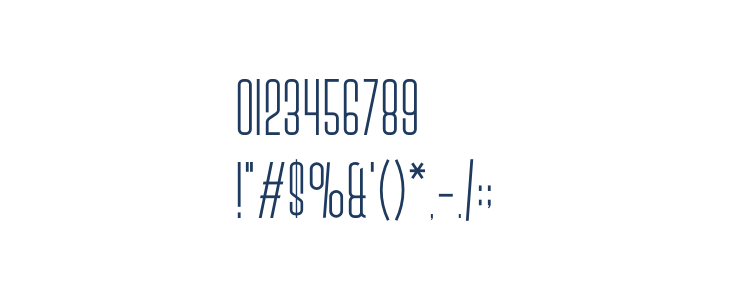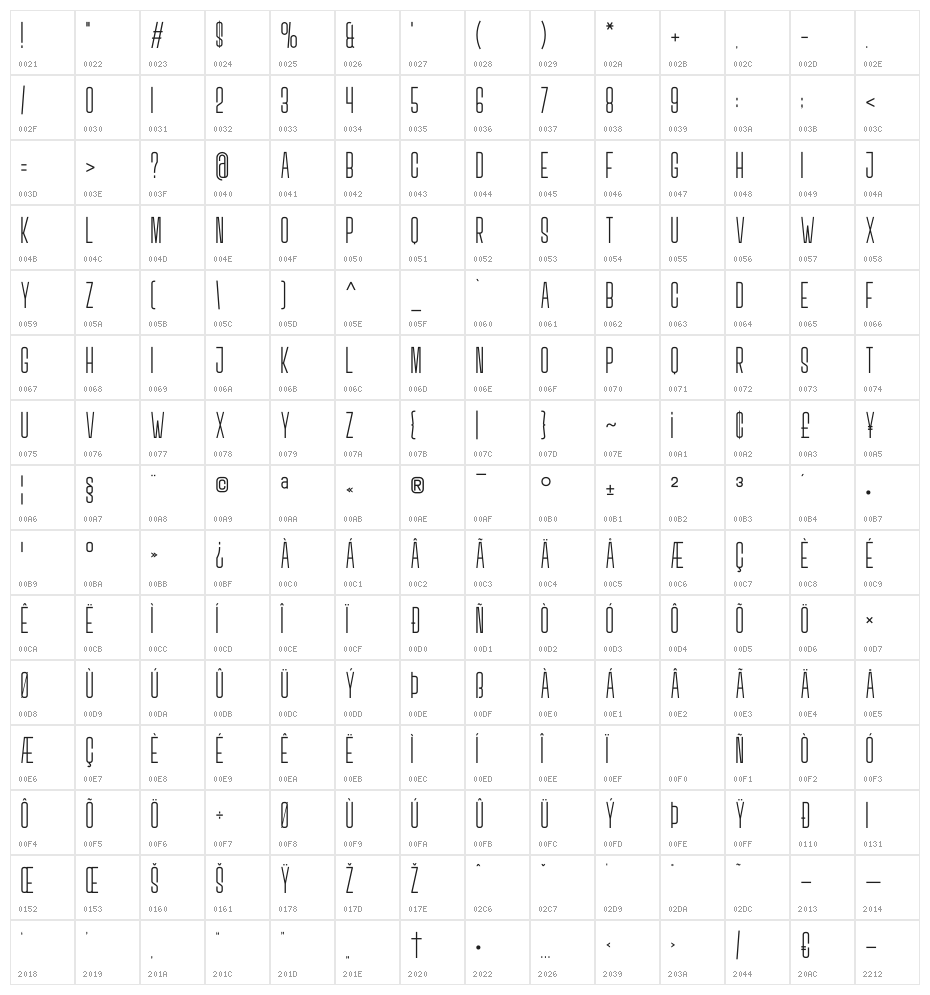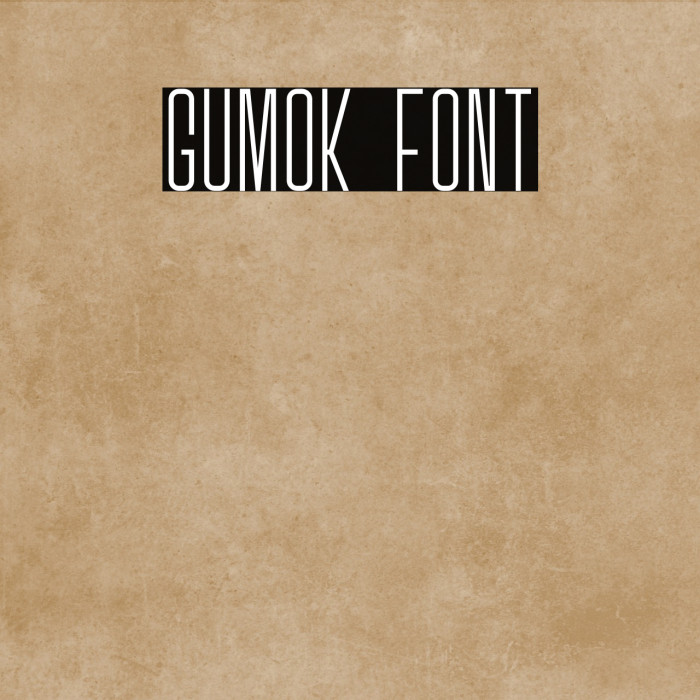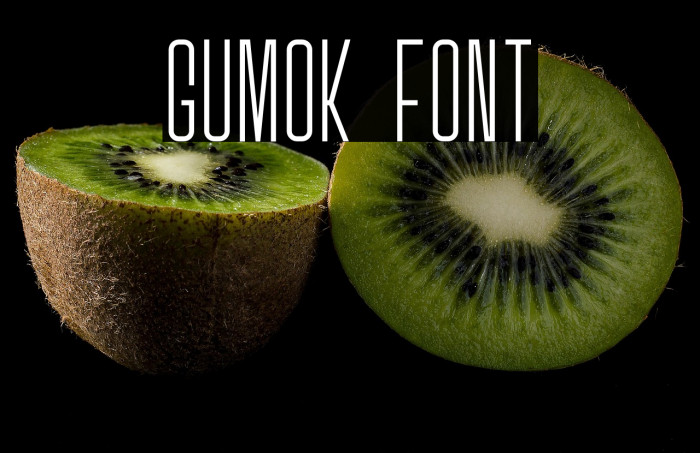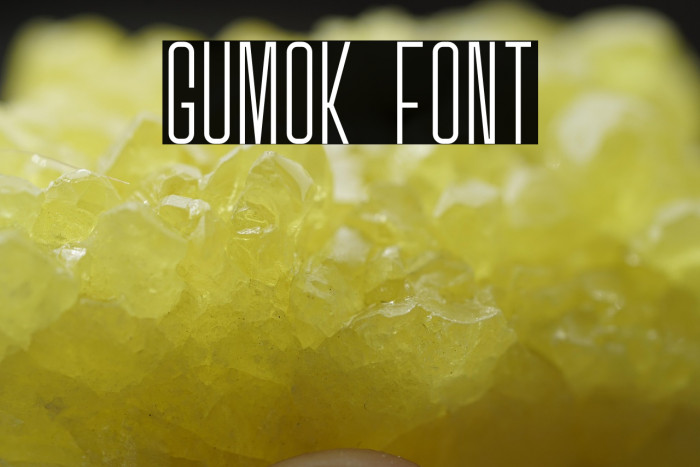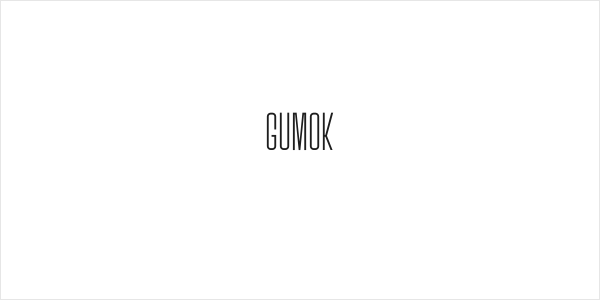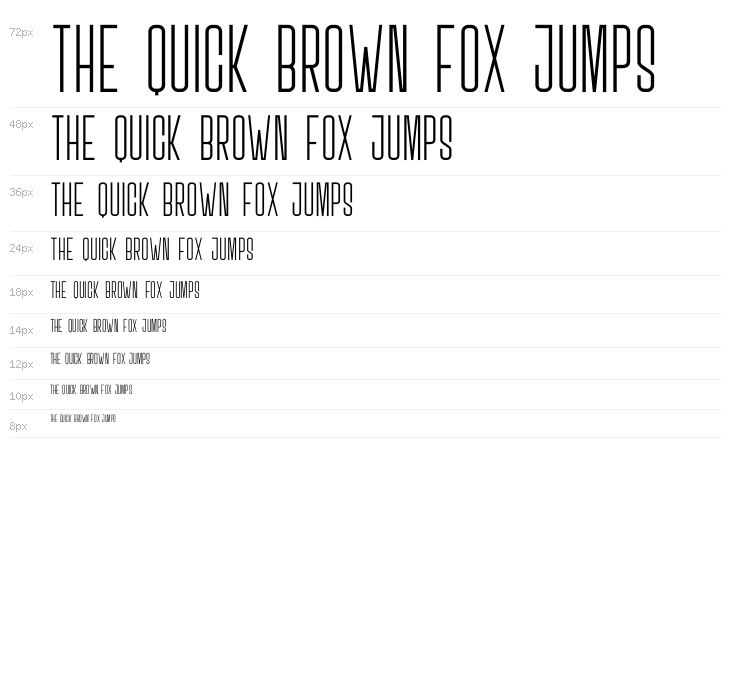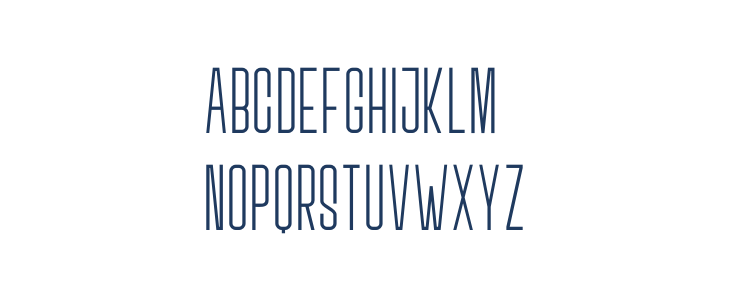
Gumok Font
Gumok Description
This font features a tall, narrow design with clean, straight lines and a modern aesthetic. The characters are uniformly structured, providing a sleek and sophisticated look. The uppercase and lowercase letters maintain a consistent height, contributing to a cohesive appearance. The numerals and special characters are designed with the same narrow proportions, ensuring uniformity across all glyphs. The overall style is minimalistic and contemporary, making it suitable for a variety of design applications.
| Proposed Projects | Ideal for modern branding, editorial design, posters, and digital interfaces where a sleek and contemporary look is desired. |